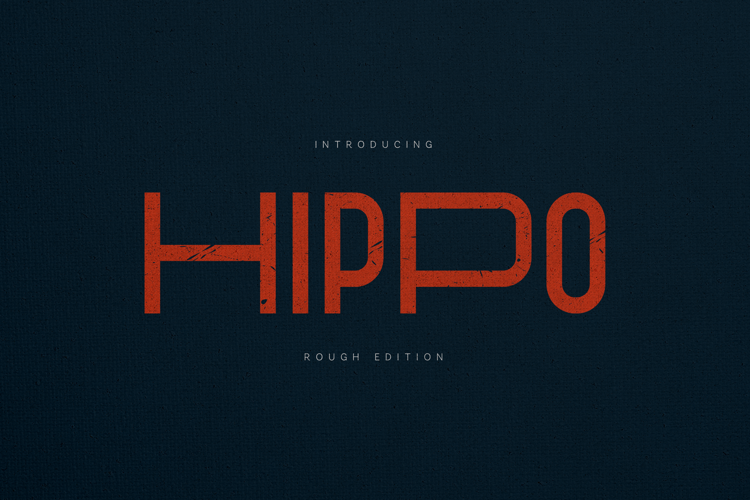
Hippo Bold Rough Sans Serif Font
Hippo is a bold rough sans serif font designed for strong impact and raw expression. Built with solid geometry and textured details, Hippo delivers a powerful, industrial tone that feels confident, modern, and unapologetic.
The Rough Edition introduces a subtle distressed texture that adds grit and character while preserving legibility and structure. This makes Hippo ideal for posters, headlines, branding, album covers, apparel, packaging, and editorial layouts that need energy and attitude.
With its wide proportions and assertive forms, Hippo performs best at display sizes, where its bold presence and rough finish truly stand out. The font balances toughness with clarity, allowing it to work across both experimental and professional design projects.
Hippo includes a complete character set with extensive multilingual support, numerals, punctuation, and symbols, making it suitable for print and digital use worldwide.
- Posters & Headlines
- Branding & Visual Identity
- Album Covers & Music Artwork
- Streetwear & Apparel
- Packaging & Labels
- Editorial & Cultural Projects
- Bold Typography Systems